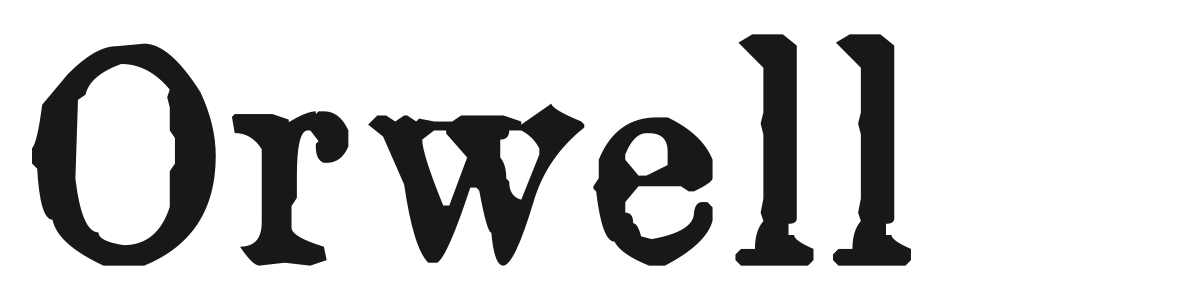
Orwell
Orwell is a distressed serif from MarsCat with a worn, typewriter-like quality that feels like faded ink on old paper. The textured letterforms carry visible roughness in every stroke, giving it a documentary or archival character that works naturally in headlines, editorial layouts, and vintage-themed design. The name feels deliberate, and the aesthetic matches: gritty, literary, and a little paranoid.